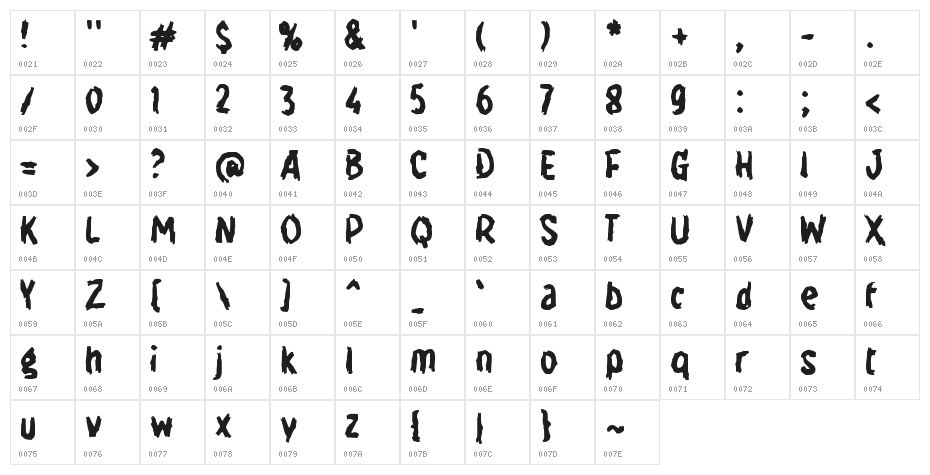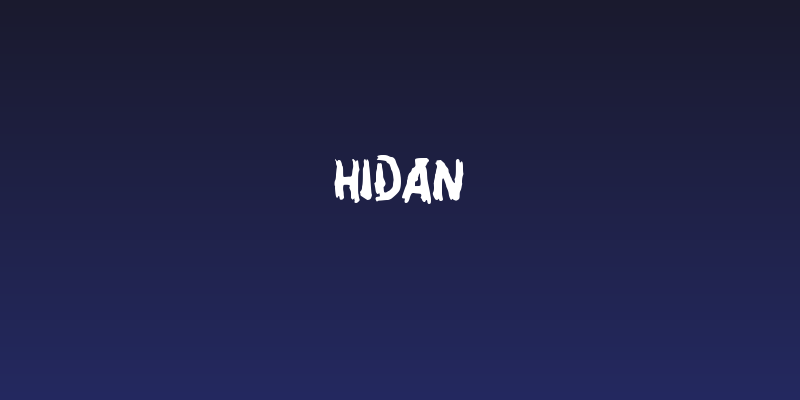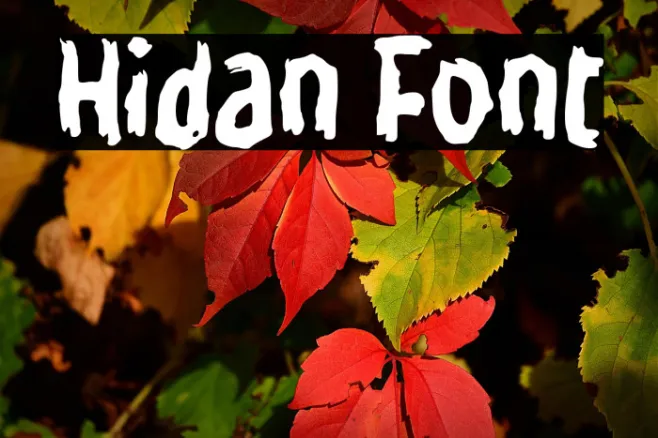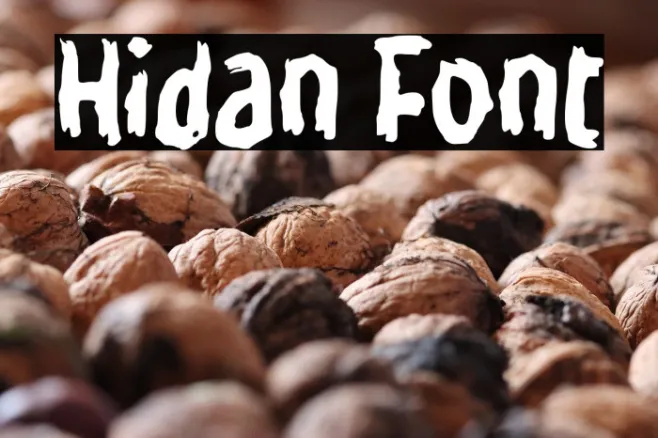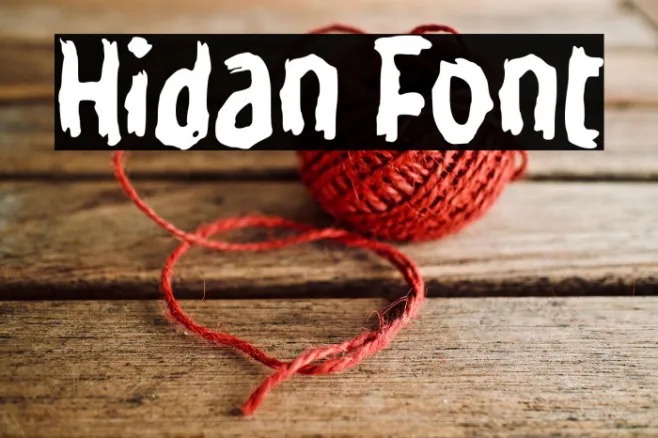
Hidan Font
Hidan Description
This font features a bold and rugged style, characterized by its thick, uneven strokes and a hand-drawn appearance. The letters have a dynamic and energetic feel, with irregular edges that give it a raw and organic look. The uppercase and lowercase letters maintain a consistent style, while the numbers and special characters complement the overall aesthetic. This font's unique design makes it stand out, offering a sense of movement and vitality. It's ideal for projects that require a bold statement or an artistic touch.
| Proposed Projects | Perfect for posters, album covers, graffiti art, and branding that requires a bold, artistic flair. |